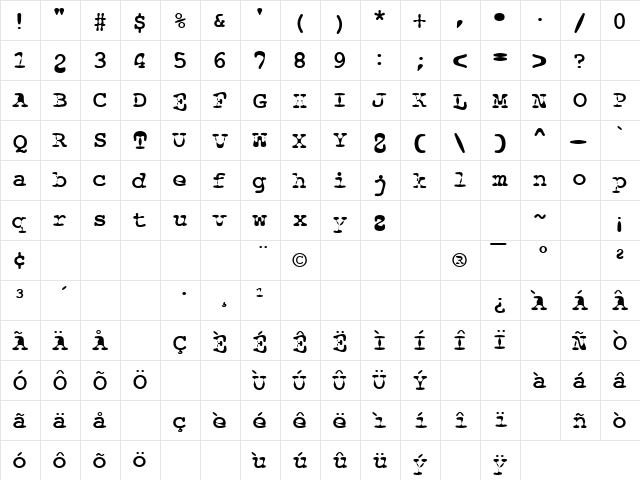
Floopi Bold
Design Context for Floopi Typeface
Floopi is a composed and adaptable typeface that performs quietly and consistently across a wide range of design contexts. Its bold stroke weight gives it real presence on the page.